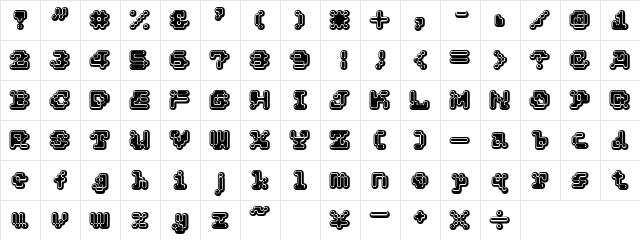
PANDA ERogo
Style: ERogo
Complete PANDA ERogo glyph index. Displaying only characters natively supported by PANDA ERogo font.
Design Context for PANDA
PANDA is a composed and adaptable typeface that performs quietly and consistently across a wide range of design contexts.